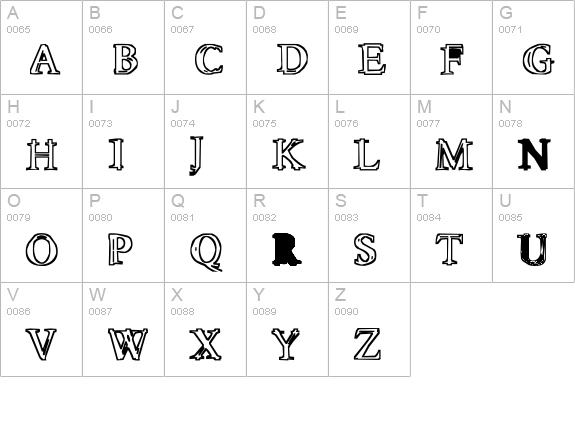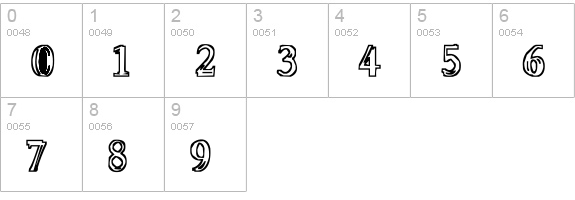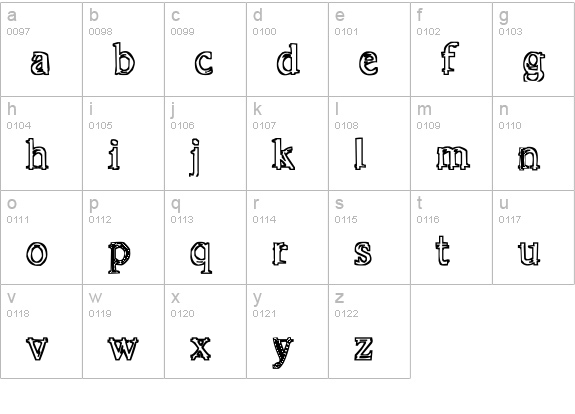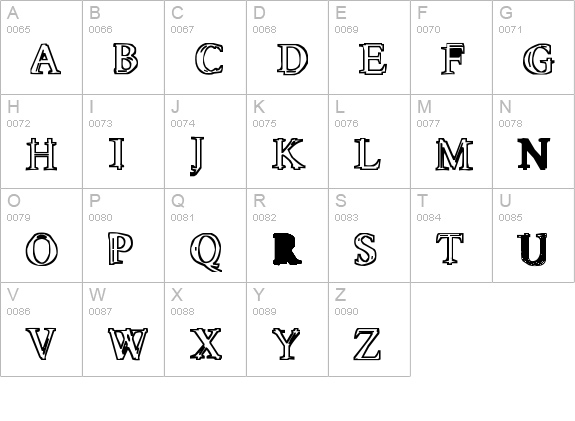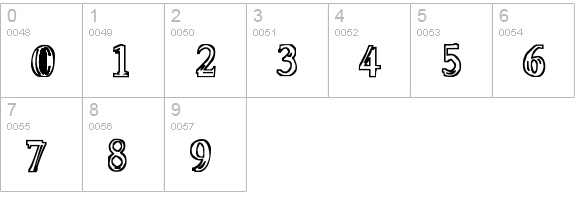
Introducing Molten font, a striking and dynamic typeface that is sure to make a bold statement in any design project. With its fiery and fluid lines, Molten font captures the essence of molten lava flowing with intensity and energy. Its unique design exudes a sense of power and movement, making it perfect for projects that require a touch of drama and flair. The best part? Molten font is available for free download at FontsMarket.com. This means you can add this eye-catching font to your collection without spending a penny. Whether you're working on a poster, logo, website, or any other creative project, Molten font will surely elevate your design to new heights. Don't miss out on this opportunity to enhance your work with this captivating and powerful font. Download Molten font today and let your creativity flow like molten lava.